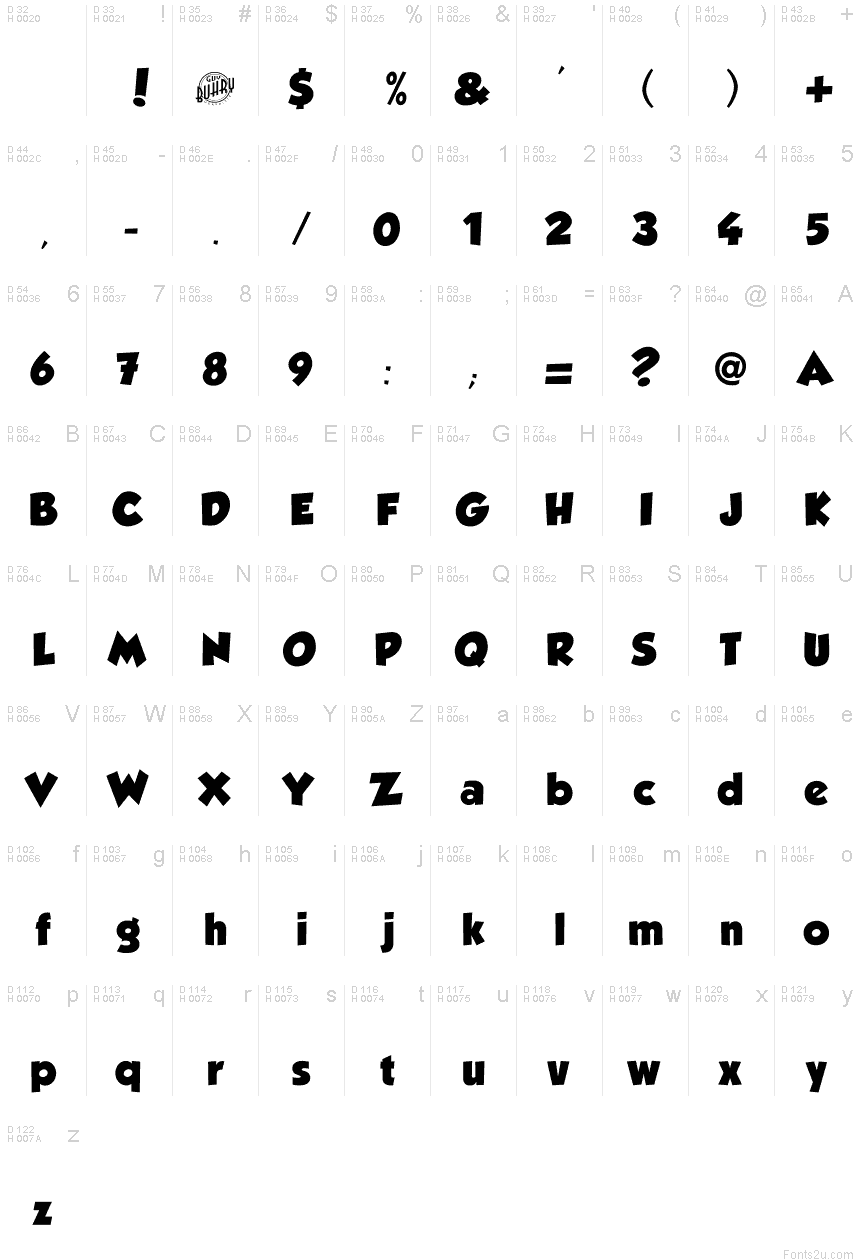
GROBOLD
GROBOLD font is a free comic display typeface with big, bouncy letters that look like they were cut from thick black foam. The chunky curves, slight tilt, and uneven rhythm give it a loud, shouty energy that still feels friendly and approachable. It reads like a handwritten title from a Saturday-morning cartoon-bold, soft-edged, and instantly playful.
Using GROBOLD, your headlines almost feel like they’re popping off the page, which works beautifully for kids’ book covers, birthday invitations, game logos, toy packaging, YouTube thumbnails, and fun stickers. This free font thrives at large sizes, so let it carry the main title and pair it with a clean sans serif for smaller supporting text to keep everything legible and lively.